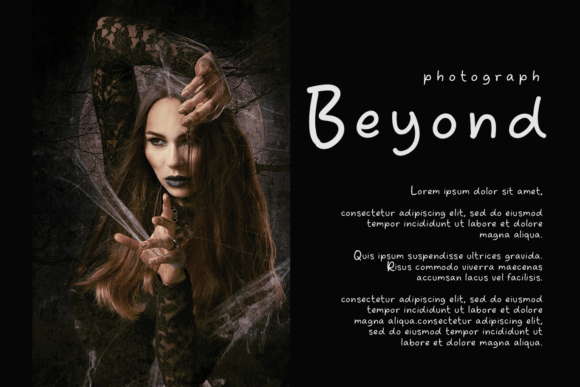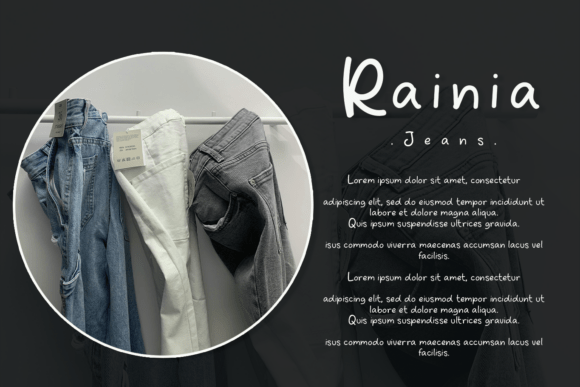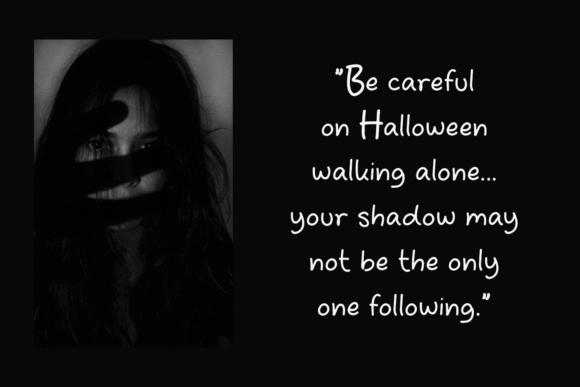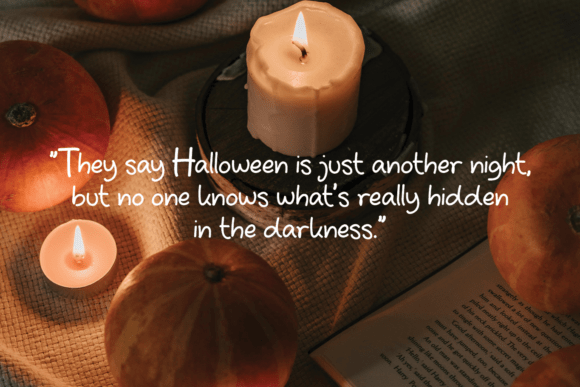
Unleash the Spooky Spirit: Exploring the Elegance of Halloween Font
As the spookiest time of the year approaches, designers and crafters are on the lookout for the perfect typography to capture the essence of Halloween. Among the numerous font options available, one stands out for its unique blend of elegance and eeriness: the Halloween Font. This exquisite, thin lettered handwritten font is masterfully designed to become a true favorite among designers and crafters alike. With its classy calligraphic influences and contemporary feel, Halloween Font is the perfect addition to any design project aimed at celebrating the spookiest season.
The Design Behind the Dread
Halloween Font boasts a distinctive, handcrafted look that immediately sets it apart from more generic fonts. Its thin letters exude a sense of sophistication and elegance, making it an excellent choice for a variety of design applications, from invitations and greeting cards to posters and digital content. The font’s calligraphic roots are evident in its fluid strokes and delicate connections, adding a touch of whimsy and charm to any text.
Despite its classic influences, Halloween Font feels remarkably contemporary and fresh. This blend of old and new makes it incredibly versatile, capable of fitting into a wide range of design aesthetics. Whether you’re creating a spooky invitation for a Halloween party, a creepy logo for a haunted house, or a festive banner for a harvest-themed event, Halloween Font is sure to bring your vision to life with style and panache.
Why Designers and Crafters Love Halloween Font
So, what makes Halloween Font a favorite among designers and crafters? For starters, its unique aesthetic allows for endless creativity and experimentation. The font’s elegant yet playful nature makes it perfect for a variety of projects, from the delightfully spooky to the charmingly whimsical. Additionally, its readability ensures that your message will be understood clearly, no matter how intricate your design may be.
Another reason Halloween Font stands out is its ability to evoke a specific atmosphere. Halloween, as a holiday, is all about embracing the mysterious, the eerie, and the fantastical. This font captures that essence beautifully, allowing designers to create content that feels both seasonal and special. Whether you’re working on a commercial project or a personal craft, Halloween Font helps ensure that your work is not only visually stunning but also thematically appropriate.
Using Halloween Font in Your Designs
Incorporating Halloween Font into your designs is incredibly straightforward. The font can be used for a wide range of applications, including:
- Halloween Invitations: Create spooky and sophisticated invitations that set the tone for any Halloween gathering.
- Social Media Graphics: Elevate your Halloween-themed social media posts with elegant and eye-catching typography.
- Posters and Flyers: Design stunning posters and flyers for Halloween events, parties, or promotions.
- DIY Crafts: Add a personal touch to your Halloween crafts, such as banners, garlands, and decorations.
Tips for Maximizing Impact
To get the most out of Halloween Font, consider the following tips:
- Experiment with Colors: While the font itself is elegant and understated, you can really make it pop by pairing it with bold, Halloween-themed colors like orange, purple, and black.
- Play with Textures: Adding subtle textures or backgrounds can enhance the spooky atmosphere of your designs and make the font truly stand out.
- Mix and Match: Don’t be afraid to combine Halloween Font with other fonts or design elements to create a truly unique look.
In conclusion, Halloween Font is a remarkable addition to any designer’s or crafter’s toolkit, especially around the spookiest time of the year. Its elegant, thin lettered design, coupled with its contemporary feel and calligraphic influences, makes it the perfect choice for a wide range of Halloween-themed projects. By incorporating Halloween Font into your designs, you’re sure to create content that’s not only visually stunning but also captures the essence of the holiday season. So why wait? Unleash your creativity and let Halloween Font guide you in creating designs that are as spooky as they are sophisticated.